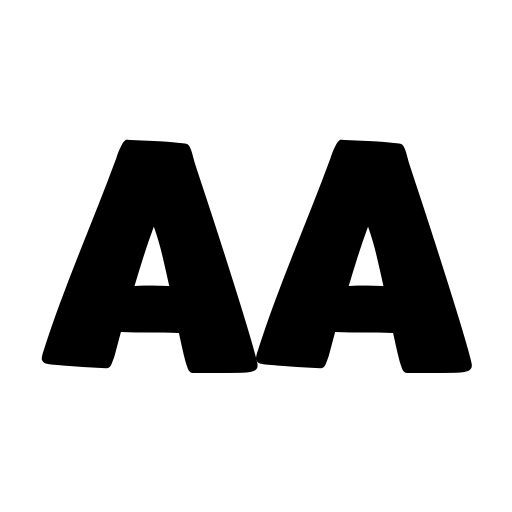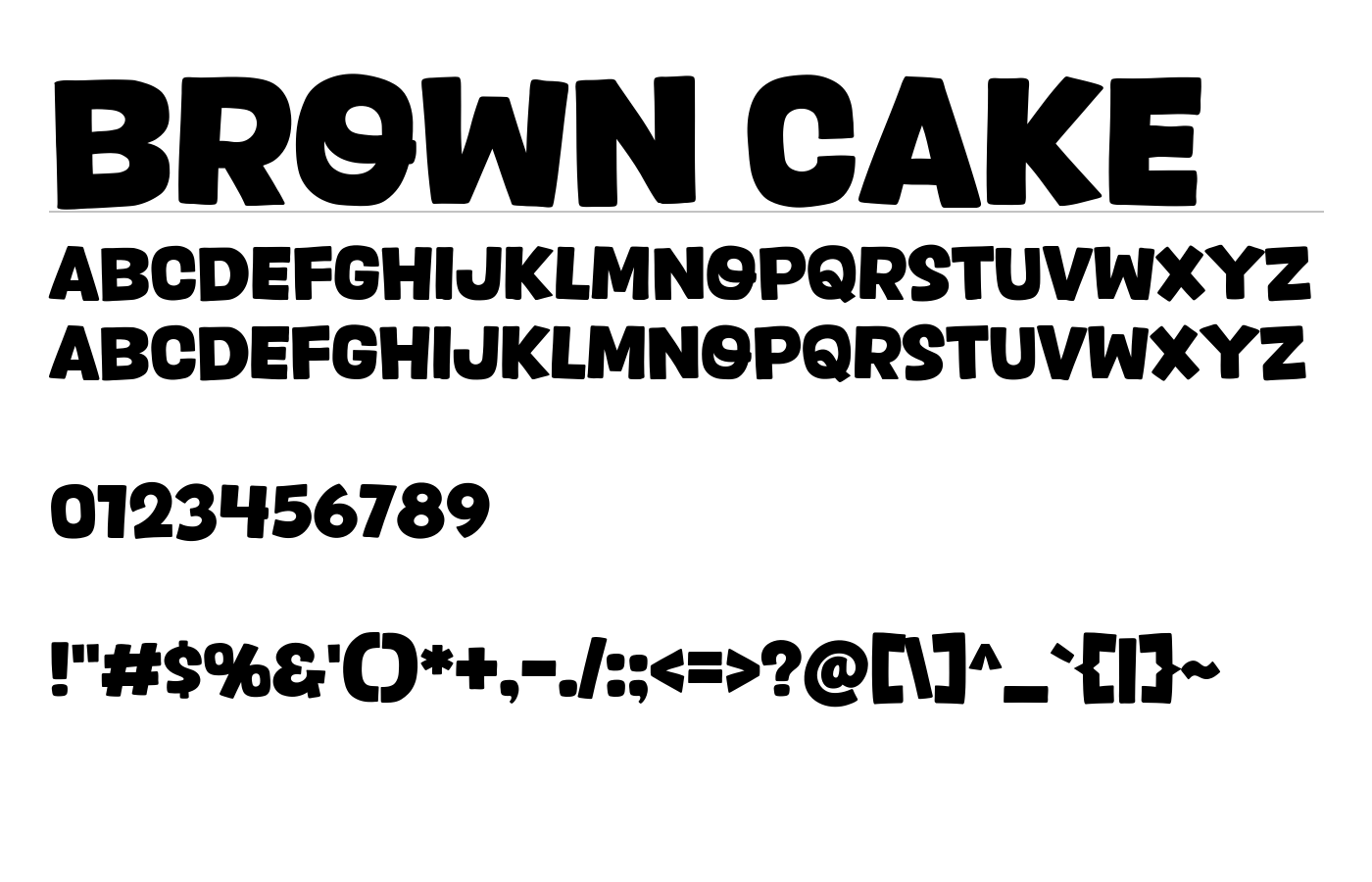
Brown Cake is a bold, playful sans serif font with a chunky, hand-drawn feel that captures a casual and friendly vibe. Its irregular, slightly wavy letterforms and thick strokes make it perfect for creating eye-catching headlines, logos, or packaging that want to convey warmth and fun. This font works well in creative and informal contexts where a lively, approachable personality is desired.
Brown Cake Font
About Brown Cake Font
| Font family | Brown Cake Font |